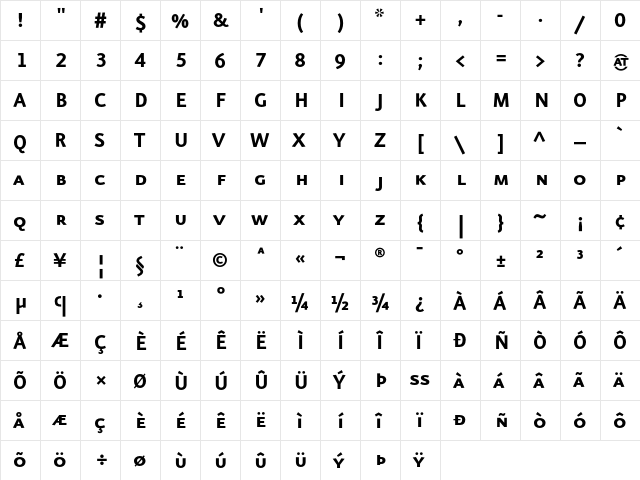
Eureka Sans Bold Caps
Design Context for Eureka Sans Typeface
Eureka Sans is a composed and adaptable typeface that performs quietly and consistently across a wide range of design contexts. Its bold stroke weight gives it real presence on the page.